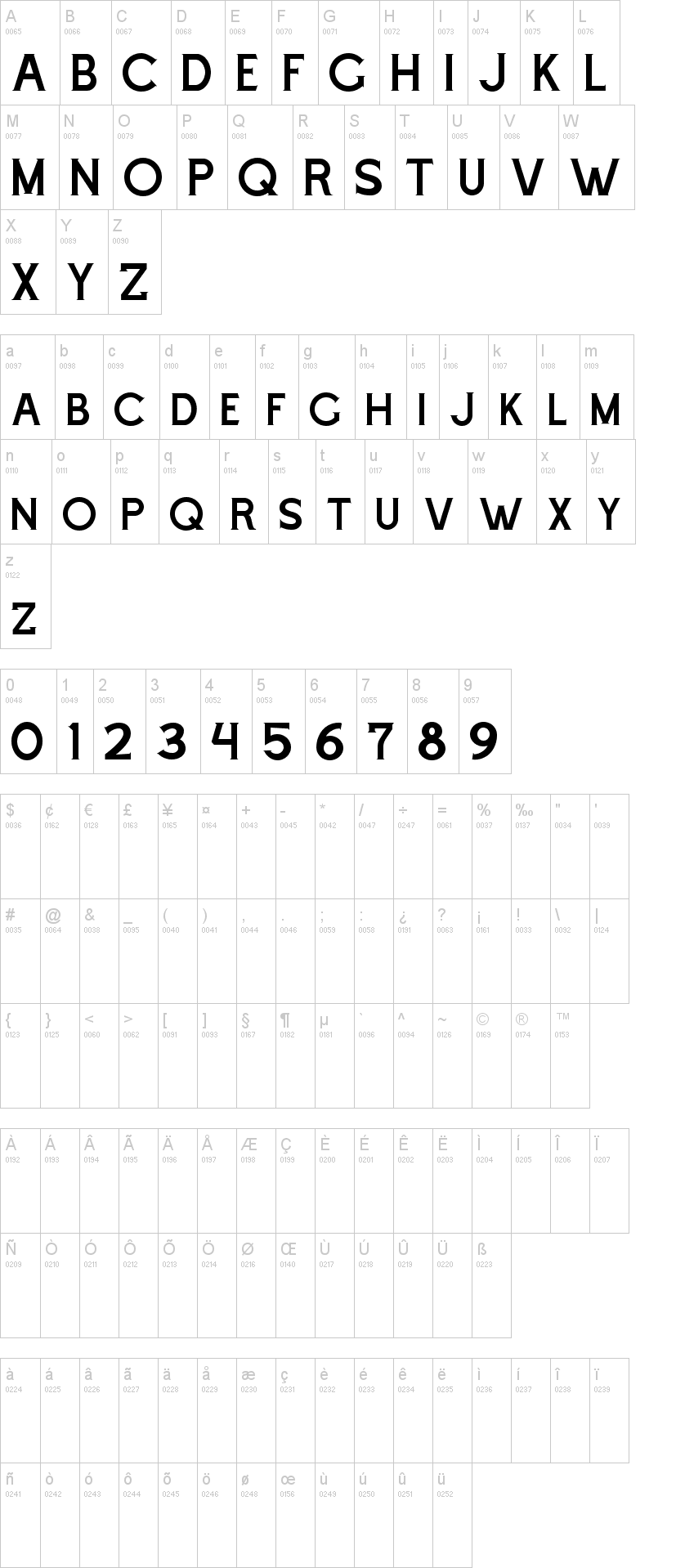
cascade
Cascade Font features a sleek design in OTF, TTF, and WOFF formats. Ideal for creative projects, branding, and modern web design.
Unleash Your Creativity with Cascade Font
Cascade Font, crafted by renowned designer Alex Smith in 2023, showcases a modern, elegant design that resonates with both simplicity and sophistication. This versatile typeface is perfect for a wide range of applications, including web design, branding, and print media, making it a go-to choice for creatives looking to elevate their projects.
Key Features and Formats of Cascade Font
The Inspiration Behind Cascade Font
Inspired by the serenity of flowing water, Cascade Font embodies movement and fluidity in its letter design. Alex Smith’s vision was to create a typeface that reflects grace and clarity, capturing the essence of modern typography while remaining approachable for everyday use.
Best Use Cases for Cascade Font
Cascade Font is ideal for creative endeavors that seek to make a statement, such as promotional materials, websites, and logos. Its modern aesthetic allows for seamless application across diverse fields—from tech startups to artisanal brands, ensuring your message stands out.